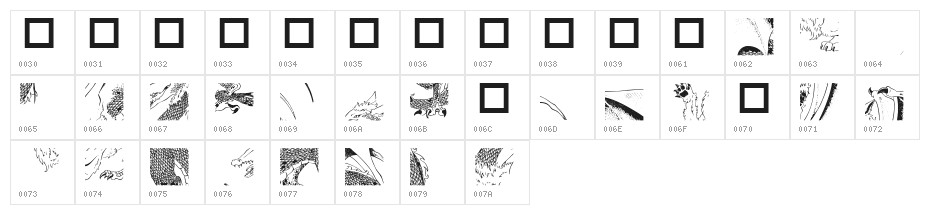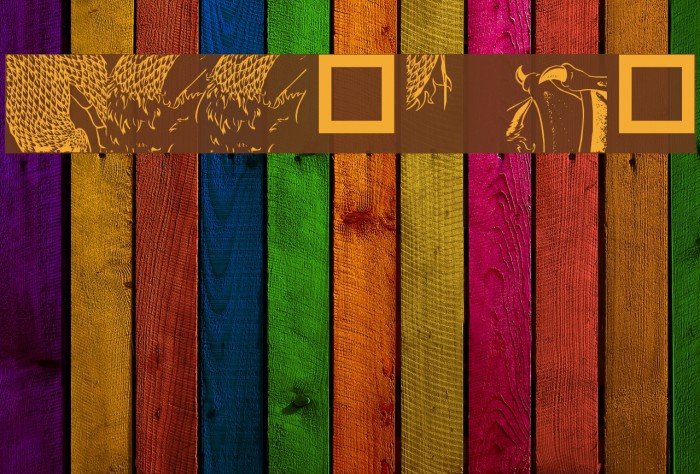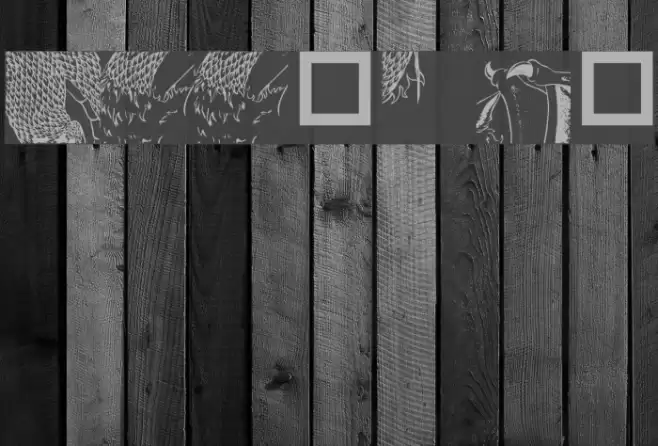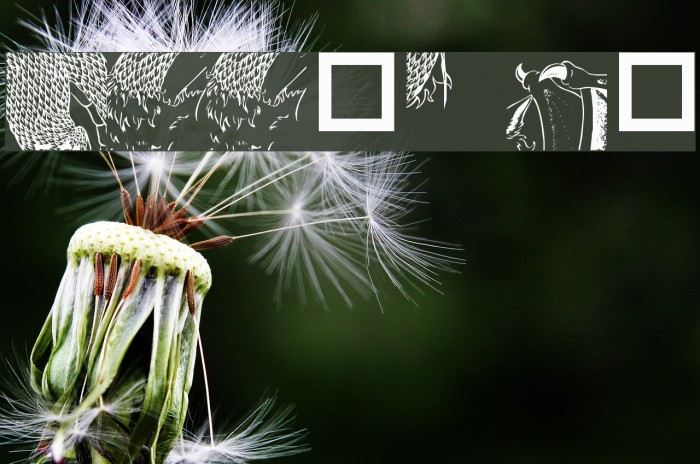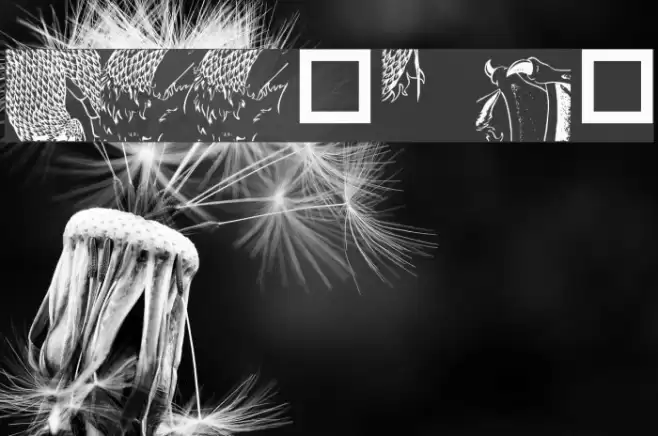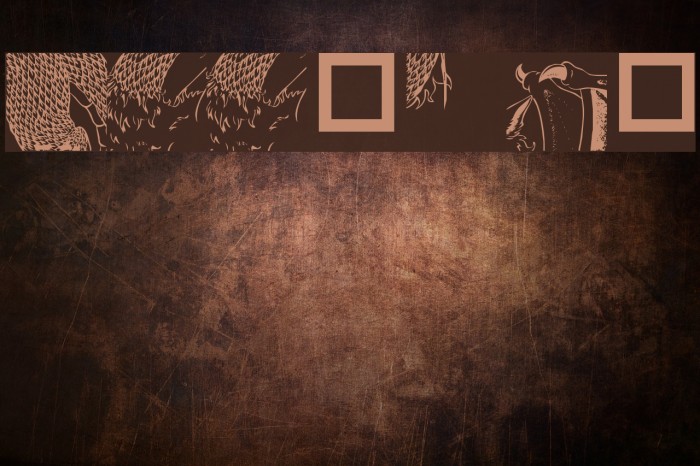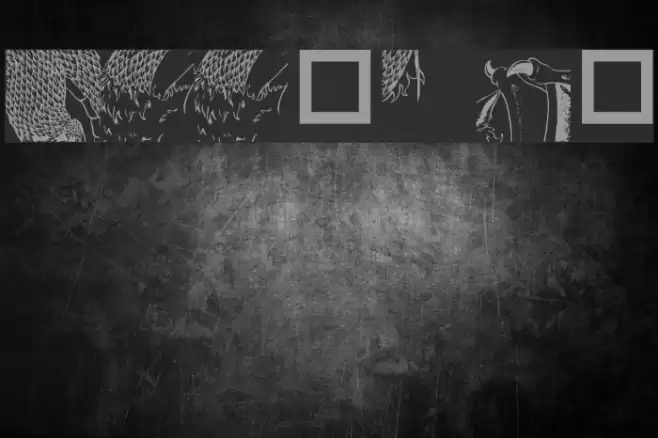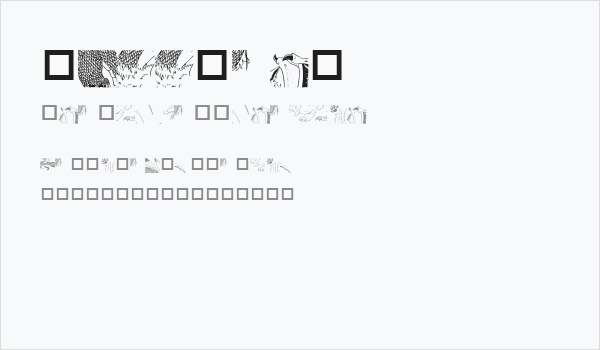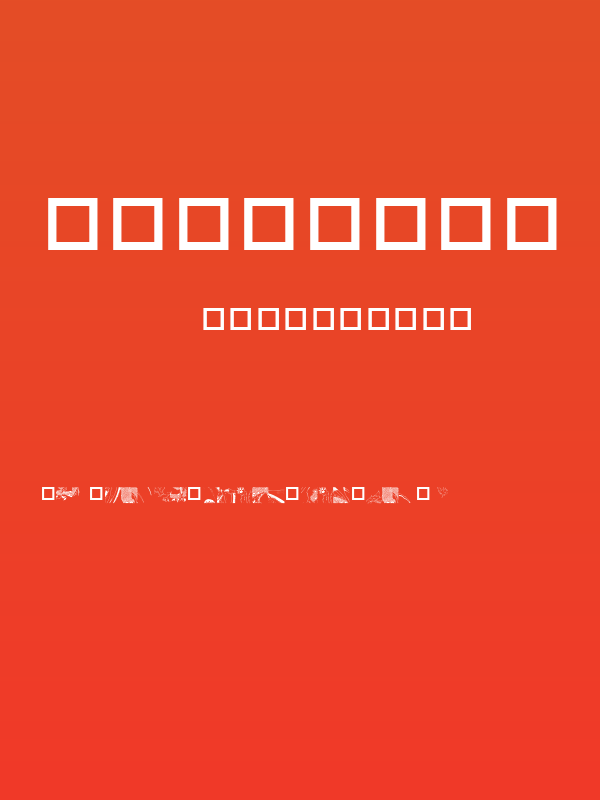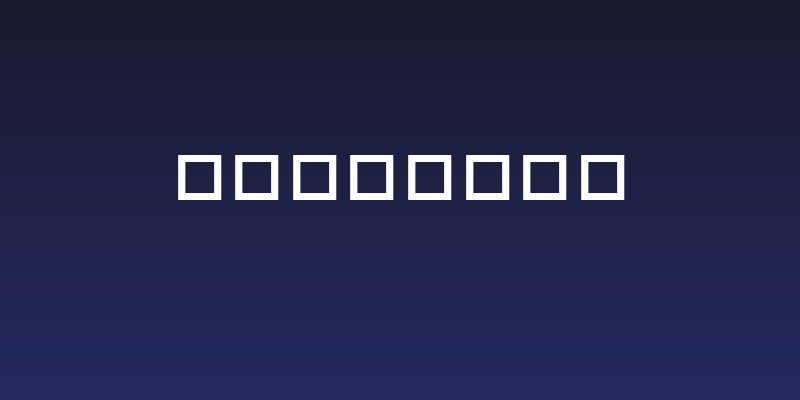
Puzzler2 Font
Puzzler2 Description
The image consists of rows of uniformly sized square glyphs, each with a thick black border and empty interior, resembling placeholder or missing character symbols. Some rows contain squares partially filled with intricate black-and-white patterns, suggesting a fragmented or obscured image behind the squares. No recognizable letterforms or numerals are present.
| Overall Style | Decorative, Abstract |
| Use Case | Puzzle design, placeholder text, abstract art |
| Proposed Projects | Not suitable for standard font projects; may be used for puzzles, placeholder graphics, or glitch art. |